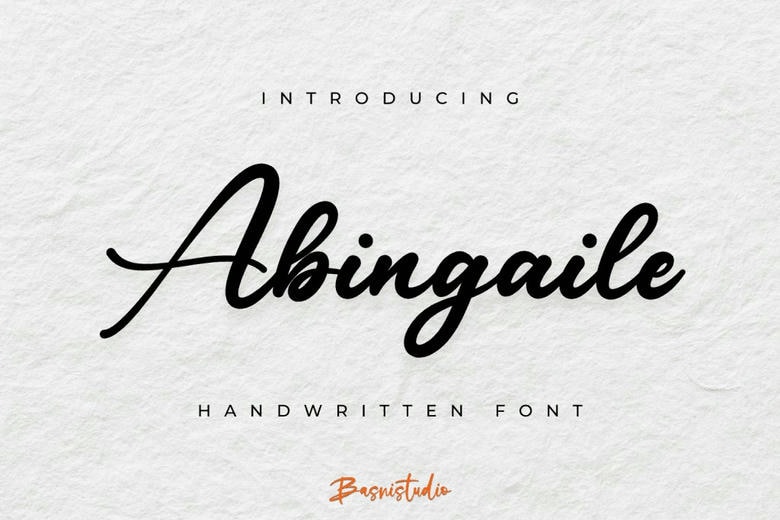
Abingaile Font
Abingaile is the stroke of a daring and fancy handwritten typeface that has quite an effective touch. It is written densely and looks very welcoming, which makes the font perfect for applying individual work. If you’re developing invitations or developing quotes or logos, with the name Abingaile, there’s nothing formal or too serious about the type of character used.
Abingaile Handwritten Script Font